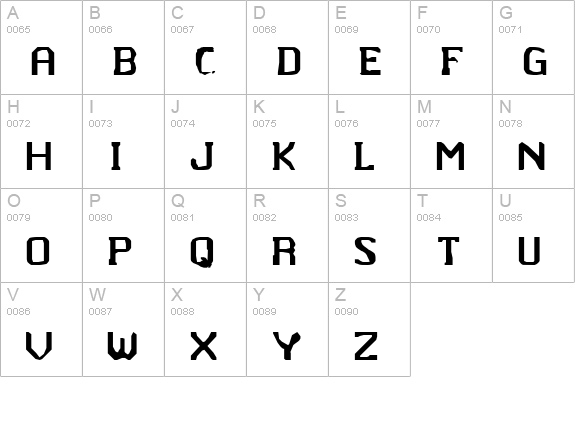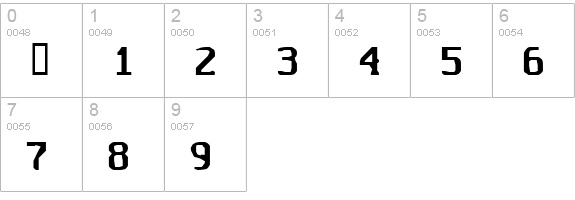
Untitted Font Details
Introducing Untitled font, a captivating typeface that exudes modernity and elegance. With its sleek and sophisticated design, this font is perfect for a wide range of creative projects, from branding and advertising to editorial design and beyond. Untitled font is characterized by its clean lines and balanced proportions, making it highly legible and versatile. Its timeless aesthetic adds a touch of refinement to any design, while still maintaining an air of contemporary appeal. But what truly sets Untitled font apart is its accessibility - this remarkable typeface is available for free download at FontsMarket.com. Yes, you read that right! You can now bring this exceptional font into your design toolkit without breaking the bank. Whether you're a professional designer or a hobbyist, the availability of Untitled font at no cost allows you to explore its incredible potential without any limitations. With its extensive range of weights and styles, Untitled font offers endless possibilities for creative expression. From light and airy to bold and impactful, this font adapts effortlessly to any design concept, ensuring that your message is delivered with utmost clarity and visual impact. So why wait? Unlock the potential of your designs with Untitled font, freely available for download at FontsMarket.com. Experience the seamless blend of modernity and elegance, and elevate your creative projects to new heights.